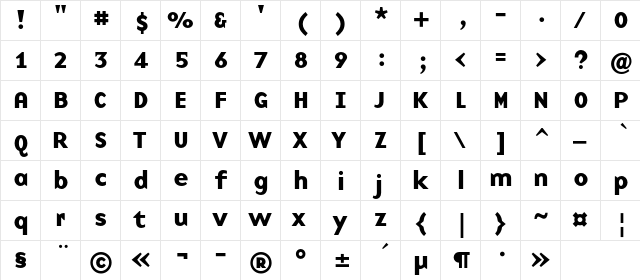
BaseNineC Bold
BaseNineC Bold Font Preview
BaseNineC Bold
Design Context for BaseNineC Typeface
BaseNineC takes a measured approach to typography — its balanced proportions and neutral character make it a reliable workhorse for both digital and print work. The heavy weight commands attention and anchors typographic hierarchies.